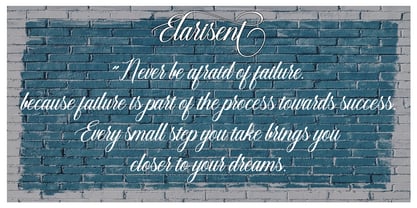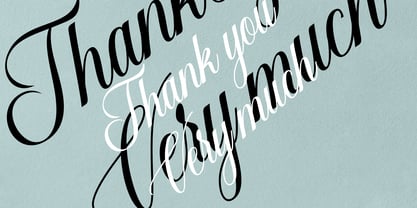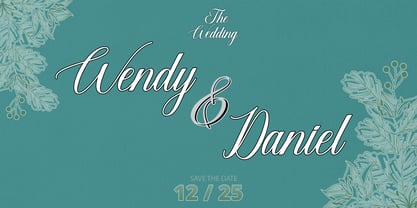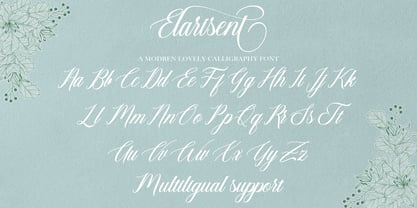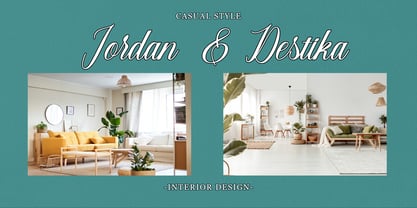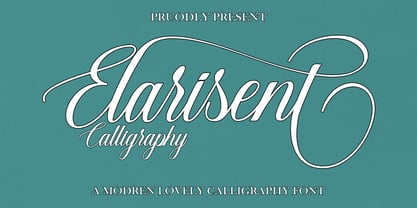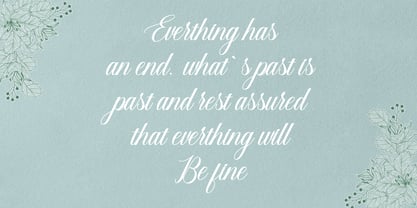
Elarisent
The Elarisent Font Family was designed by Ata Illah and published by Naiza Studio. Elarisent contains 2 styles and family package options. More about this family
“Elarisent Script” is an elegant and modern calligraphy-style typeface featuring smooth flowing strokes, stylish curves, and a handcrafted aesthetic. Its medium-weight design creates a perfect balance between readability and artistic expression, making it ideal for branding, wedding invitations, logos, social media graphics, packaging, and luxury-themed designs. The script delivers a sophisticated and graceful appearance while maintaining a warm and personal touch.